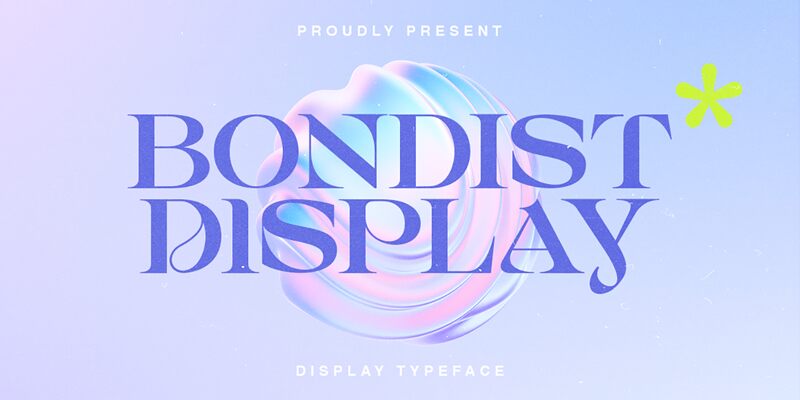
Bondist by Fargun Studio is a captivating serif font that exudes elegance and sophistication. With its expanded width and meticulously crafted letterforms, this typeface commands attention and evokes a sense of timeless grandeur. The smooth, flowing strokes and the delicate balance between the thick and thin elements create a visual harmony that is both refined and impactful.
Bondist's versatility shines through its ability to seamlessly adapt to a wide range of design applications. From high-end editorial layouts and prestigious brand identities to elegant event invitations and luxury product packaging, this font's distinctive character lends an air of sophistication and exclusivity to any project.